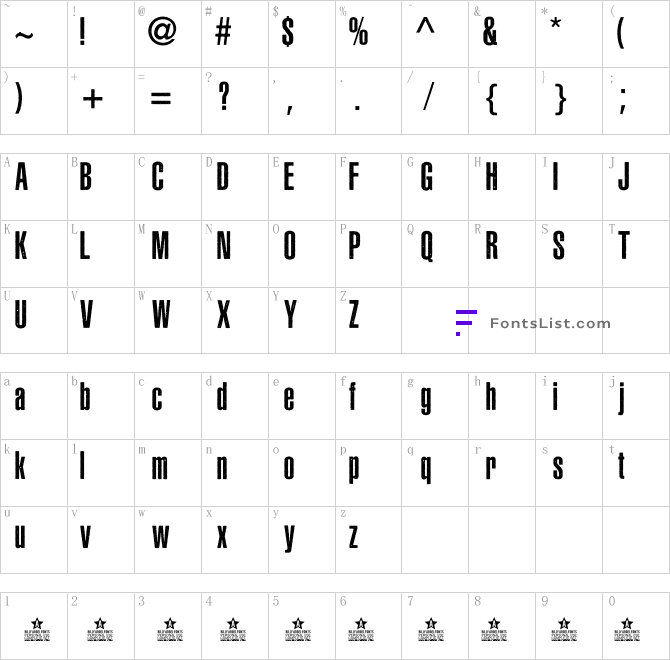
ASPHALTIC-GRAIN-CONDENSED-PERSONAL-USE-Bold.ttf is a very beautiful artistic font, ASPHALTIC-GRAIN-CONDENSED-PERSONAL-USE-Bold.ttf is widely used in the design and printing of various books and pictures,ASPHALTIC-GRAIN-CONDENSED-PERSONAL-USE-Bold.ttf has a strong visual impact,ASPHALTIC-GRAIN-CONDENSED-PERSONAL-USE-Bold.ttf is a commonly used font in newspapers, magazines and books, and is used in posters, e-commerce Poster design, store design, logo design, font design and other fields.ASPHALTIC-GRAIN-CONDENSED-PERSONAL-USE-Bold.